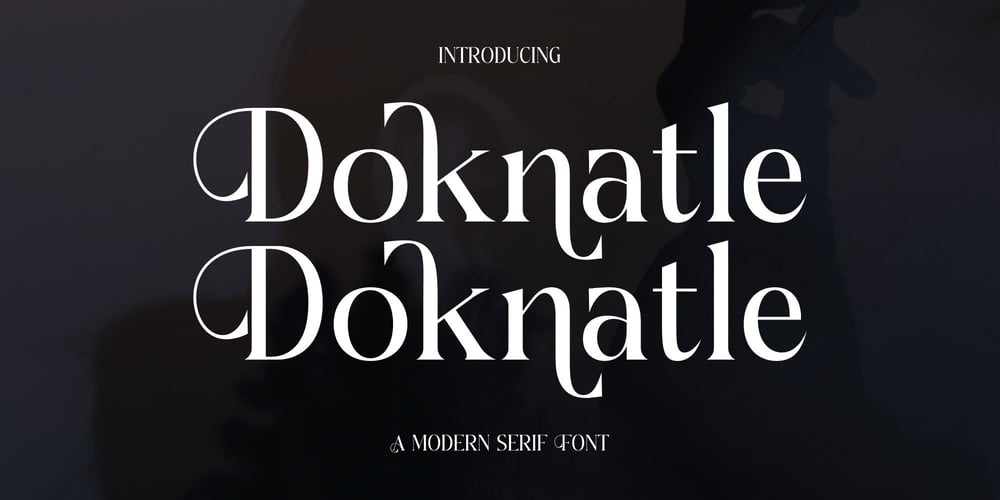
Doknatle Font Family was designed by Heru Utama Putra and published by Letterena Studios. Doknatle contains 2 styles and family package options. Doknatle is a modern and classic serif typeface that has its own unique style. This typeface is perfect for an elegant & luxurious logo, book or movie title design, fashion brand, magazine, clothes, lettering, quotes, and so much more.